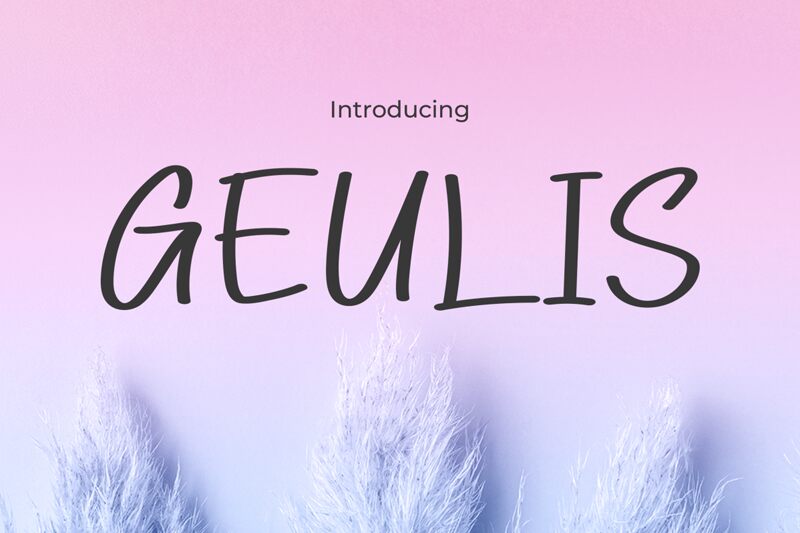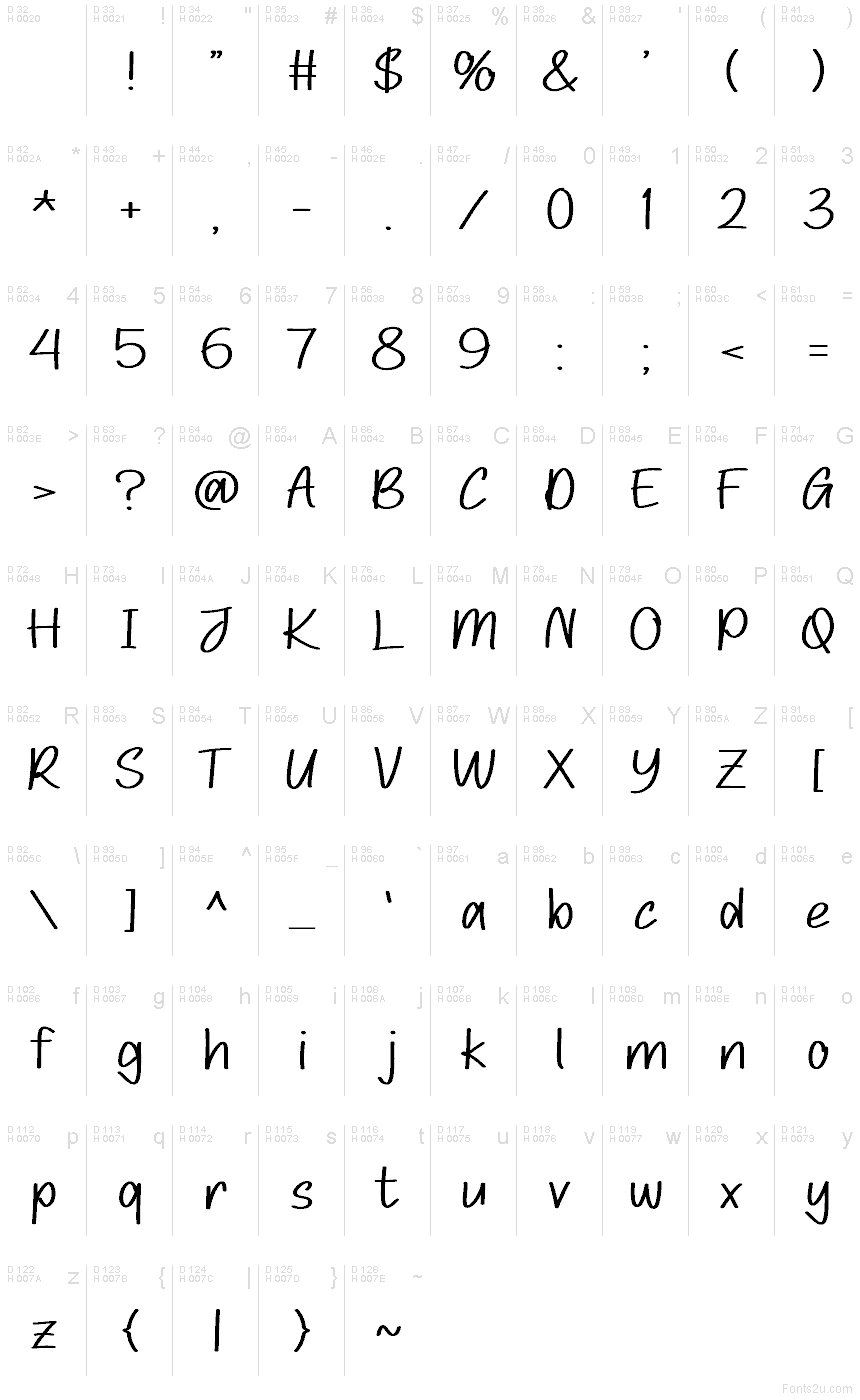
GEULIS
Geulis font by Pinisiart is a free handwritten font with a casual and informal feel. Modern, approachable, and friendly, this typography tool will complement your creations with love and instant appreciation from your audiences. A set of uppercase letters can be combined to obtain excellent results in your written texts.
Use it for posters, pictures for social media platforms like Instagram or Facebook, quotes, product packages or labels (food especially), children illustration designs, logotypes., magazines/newsletters headers and titles.